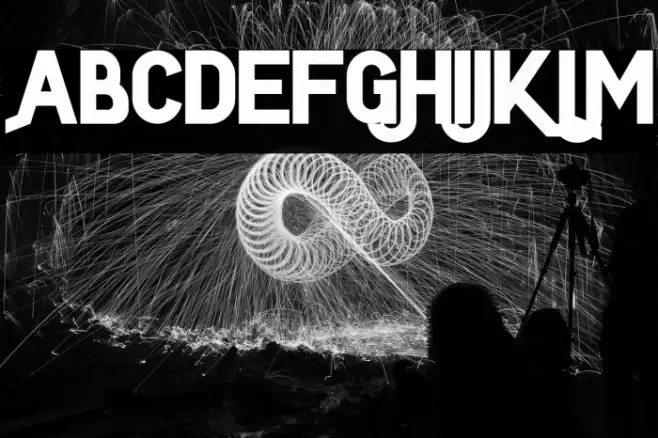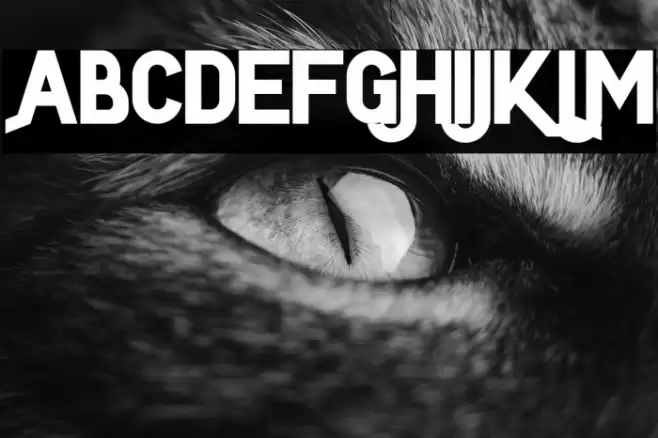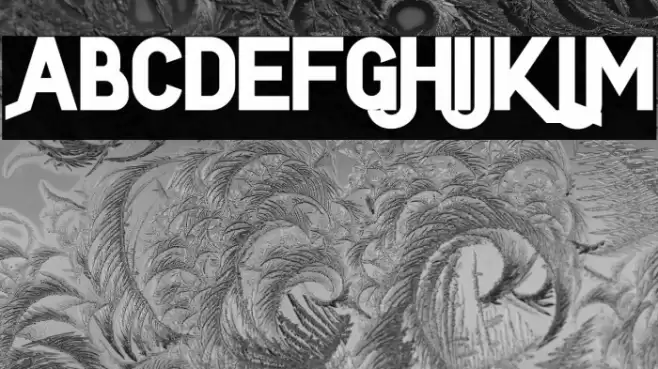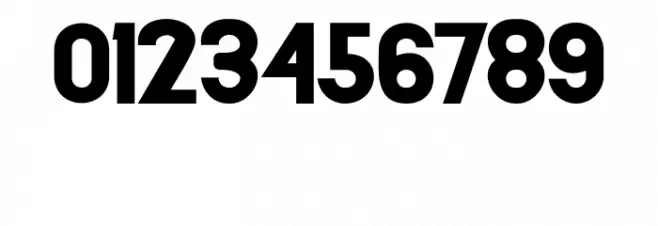
LeaferFREE Font
LeaferFREE Description
This font features a bold and modern design with a unique geometric flair. The uppercase letters are characterized by strong, angular lines and a distinctively wide stance, giving them a commanding presence. The lowercase letters maintain a similar geometric style, with rounded edges that soften the overall look. The numerals are consistent with the bold style, ensuring readability and impact. Special characters are integrated seamlessly, maintaining the font's cohesive aesthetic. The overall design is both contemporary and versatile, making it suitable for a variety of applications.
A bold, modern font with geometric elements and a wide stance from Uncategorized fonts.
- Font: LeaferFREE
- Proposed Projects: Ideal for branding, headlines, posters, and modern web design.